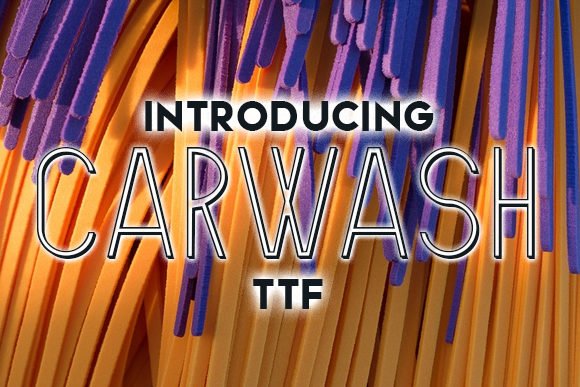
Introduction to Carwash Font
Carwash is a simple and sharp-looking display font that will truly inspire your work.
Use this font for your designs and explore its endless possibilities .
Key Features of Carwash Font
Why Choose Carwash Font?
Carwash Font offers exceptional quality and versatility, making it a valuable addition to your design toolkit. Whether you’re creating for personal projects or commercial use, Carwash Font delivers professional results.